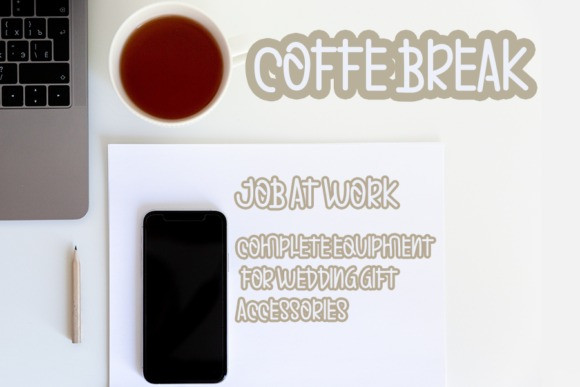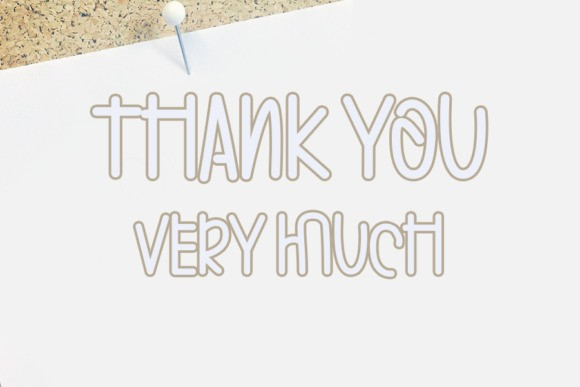
Victorian Monogram Font
Victorian Monogram Display Font is a stunning and incredibly unique display font. Contemporary and fresh, it is perfect for any design you wish to create. Add it to your creative projects and make them outstanding!